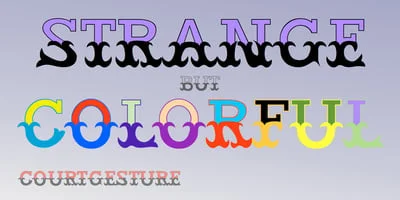
CourtGesture Font
The CourtGesture Font is ideal for legal firm branding, courthouse signage, judicial documentation, law school materials, formal government communications, diplomatic correspondence, parliamentary publications, and professional legal presentations. This distinguished typeface excels in applications where authority and judicial gravitas need to be communicated, making it perfect for legal institutions that want to project credibility, respectability, and unwavering professional integrity through refined typographic presentation.
What makes CourtGesture Font exciting is its perfect embodiment of legal authority and courtroom dignity that instantly commands respect and professional credibility. The font's formal letterforms and judicial precision create an atmosphere of legal expertise and institutional trustworthiness, making it ideal for law firms and legal organizations that want to communicate competence, reliability, and adherence to the highest professional standards. Its authoritative character design reflects the solemnity and importance of legal proceedings.
The CourtGesture Font family typically includes light, regular, medium, and bold weights, often featuring formal ligatures, legal symbols, and institutional ornaments that enhance its professional appeal. Many versions include specialized legal notation characters, section symbols, and comprehensive multilingual support that provide designers with essential tools for creating authentic legal documentation and professional judicial communication materials.
For designers working on legal projects that require institutional credibility and professional authority, CourtGesture Font offers exceptional judicial distinction. Its ability to instantly communicate legal expertise and institutional reliability makes it an invaluable choice for law firms, government agencies, and any project requiring typography that embodies the dignity, precision, and unwavering professionalism of the legal system and judicial excellence.